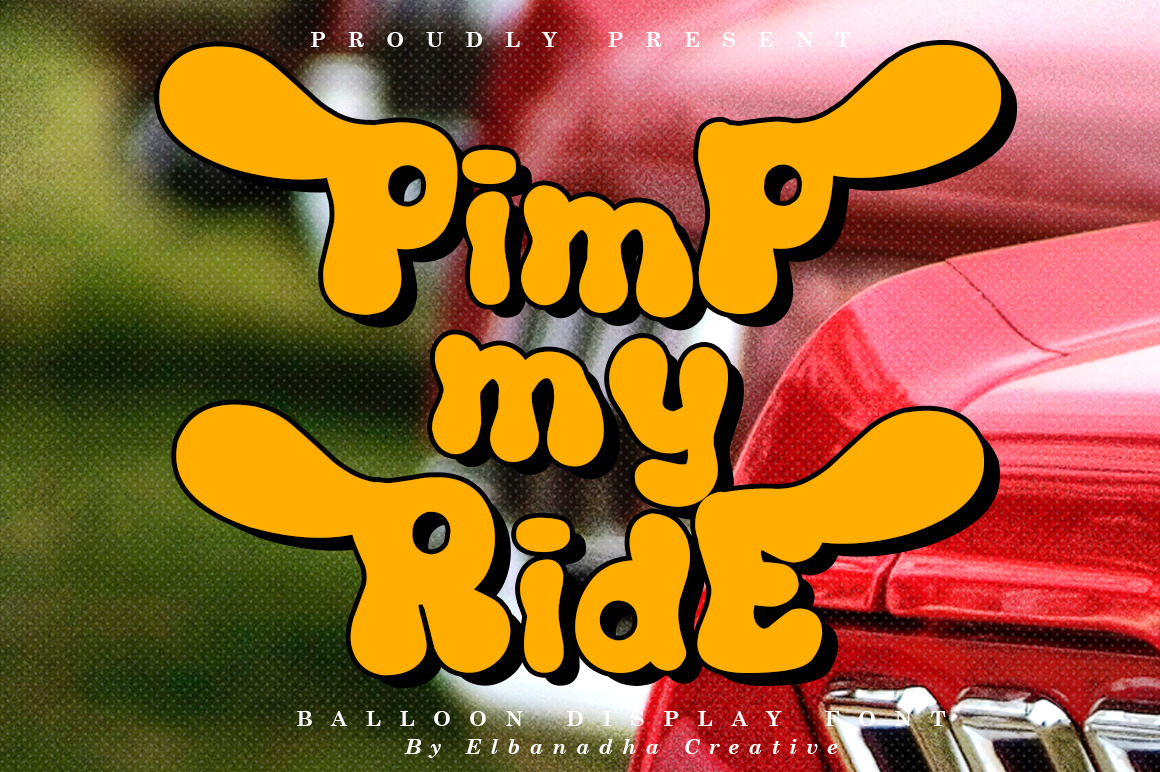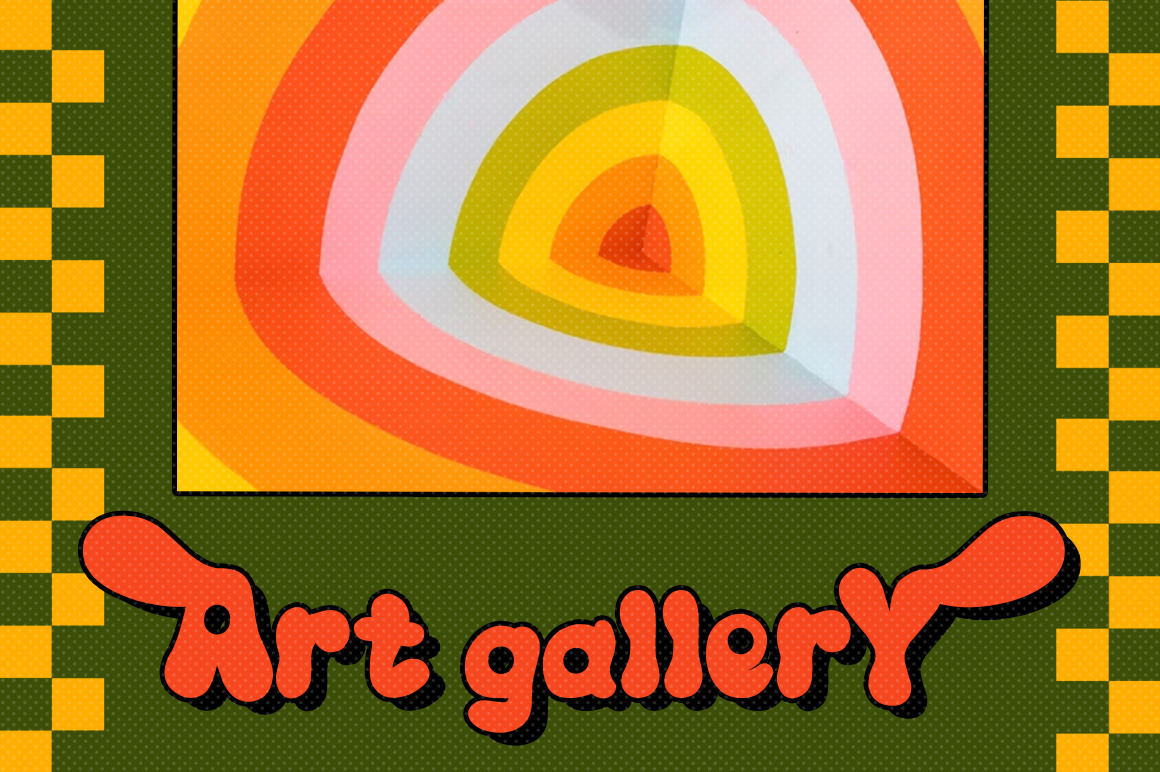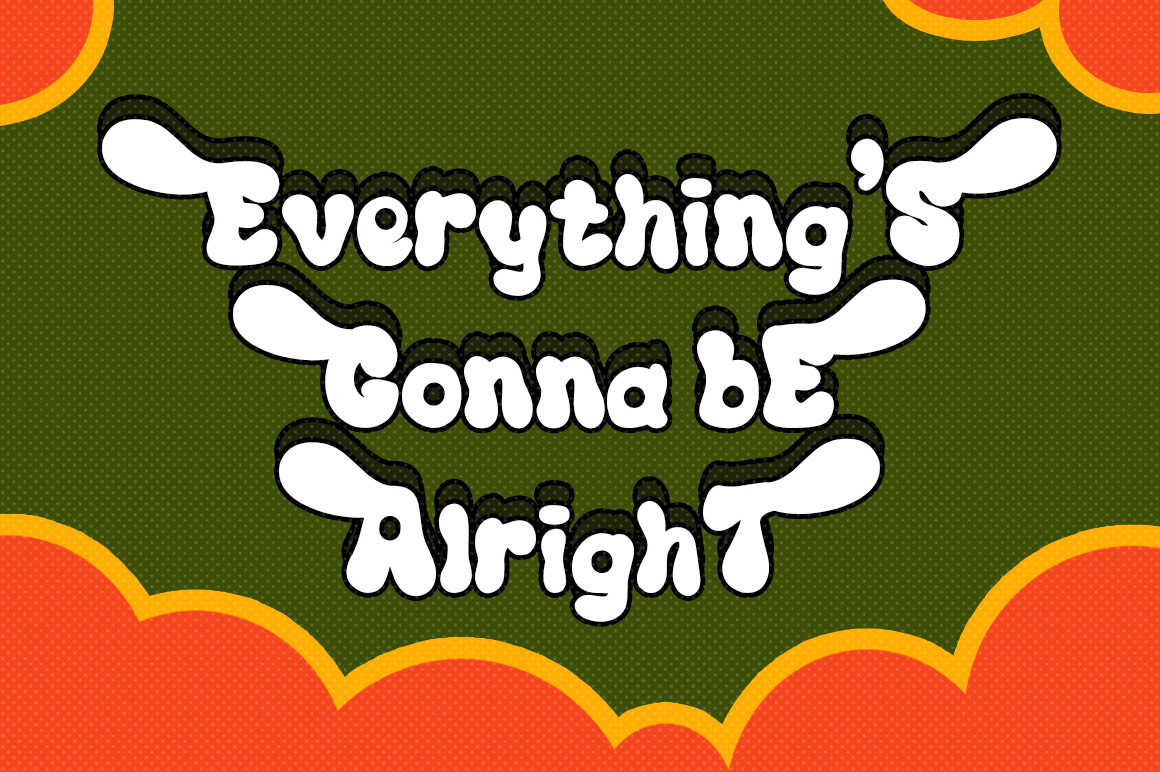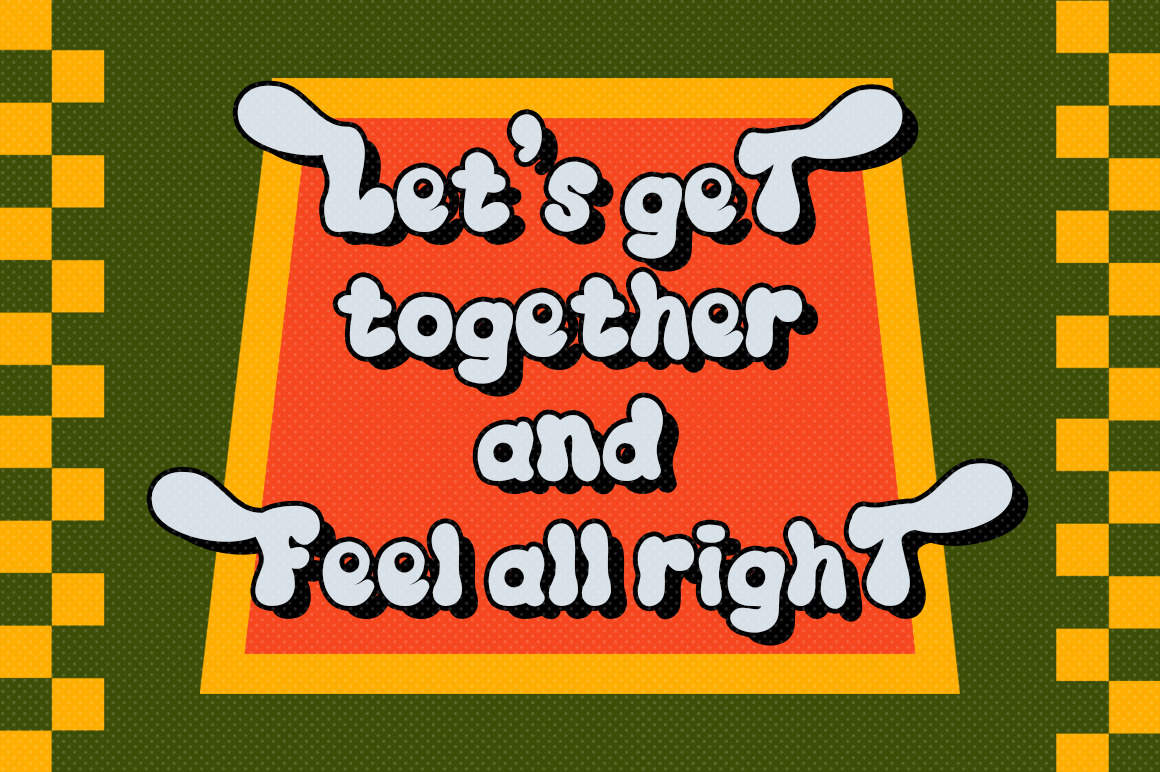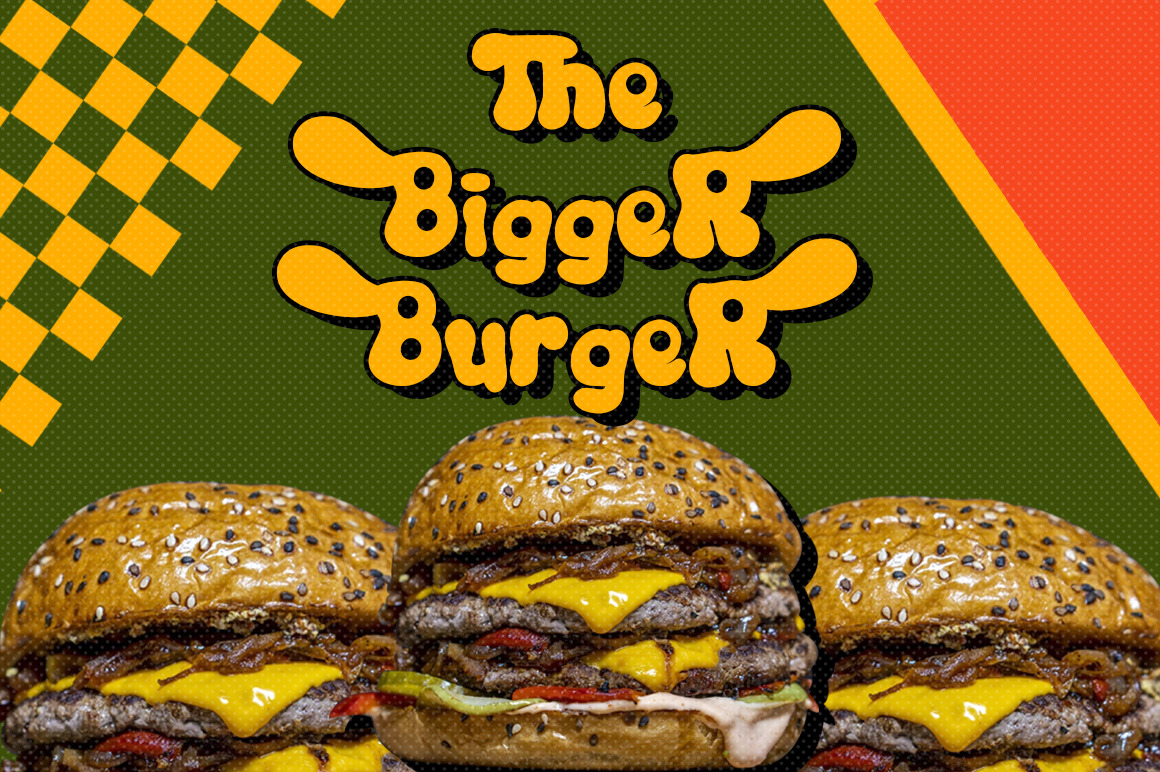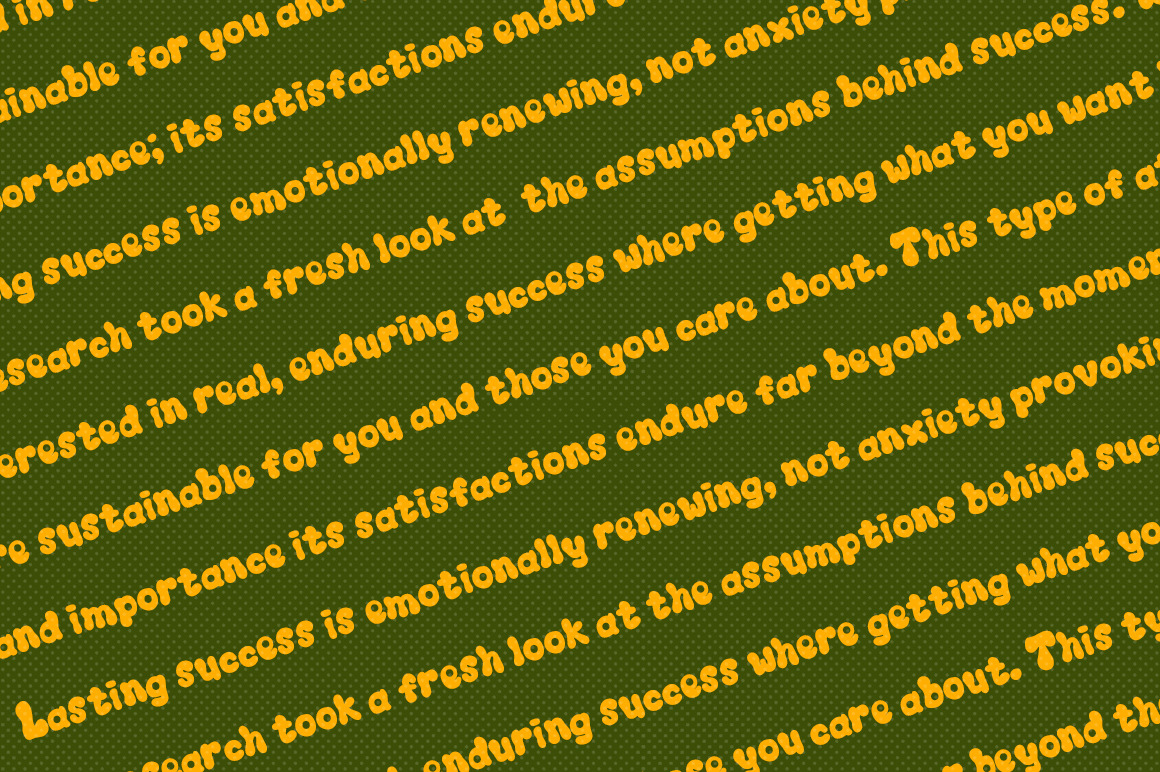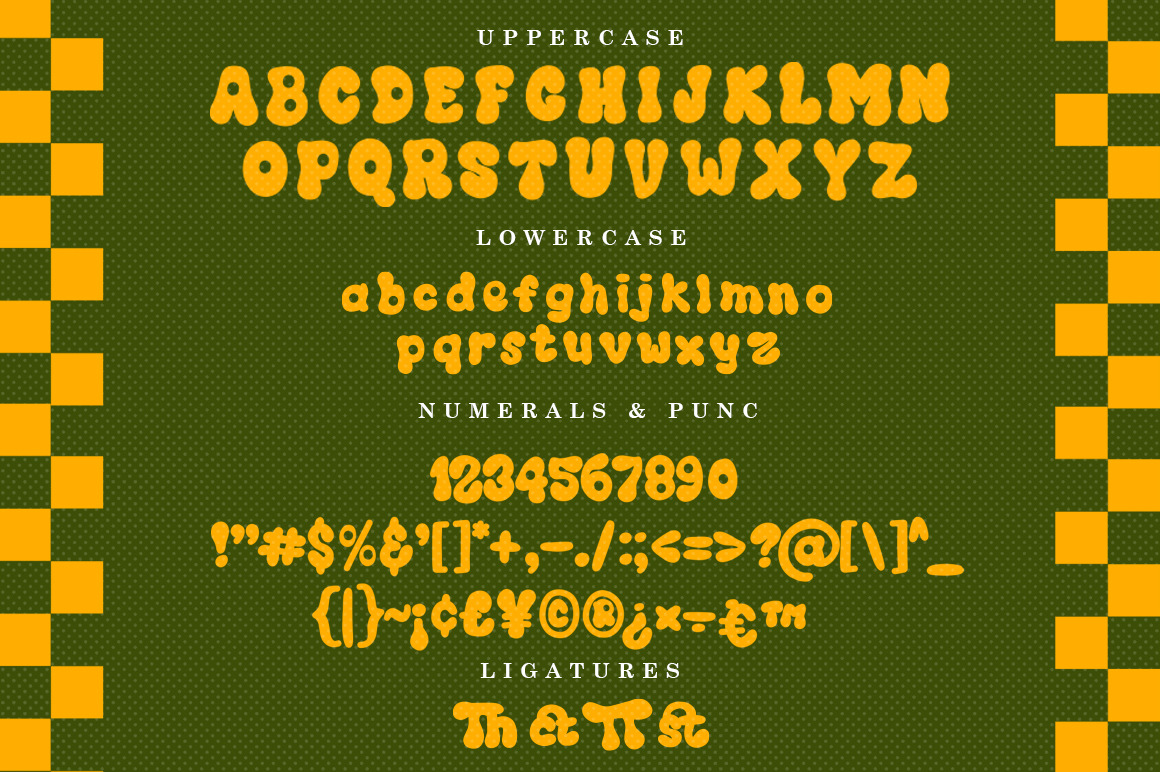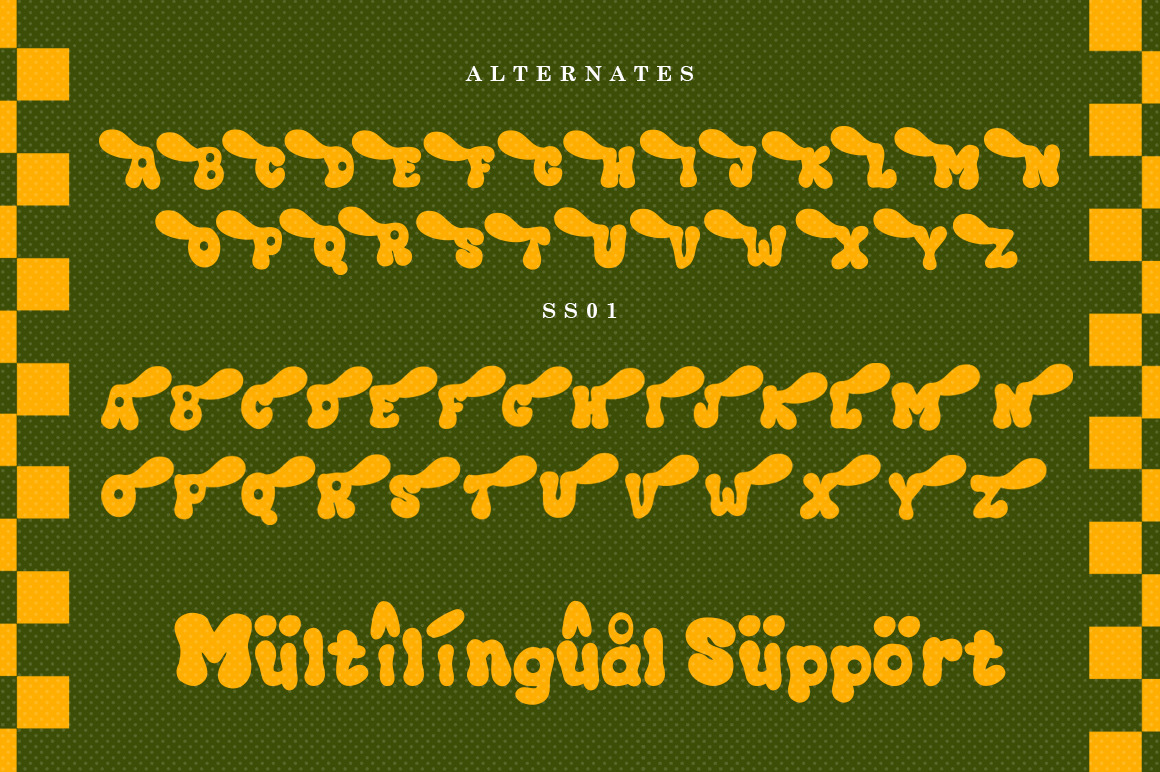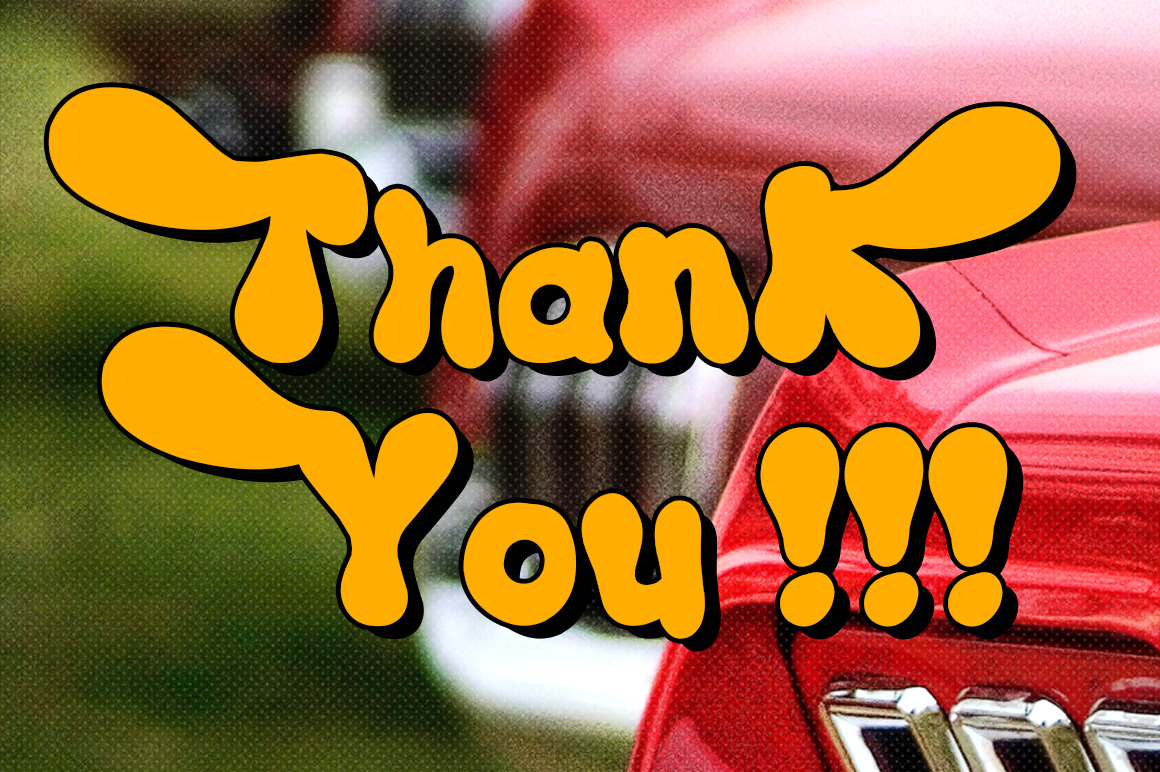
PIMP MY RIDE | BALLOON DISPLAY FONT
PIMP MY RIDE | BALLOON DISPLAY FONT , from Elbanadha Creative, suitable for any projects such as: logos, branding projects, homeware designs, product packaging, mugs, quotes, posters, shopping bags, t-shirts, book covers, name card, invitation cards, greeting cards, label, photography, watermark, special events, and all your other lovely projects that need a beautiful taste.
Standard glyphs
Alternates and Ligature